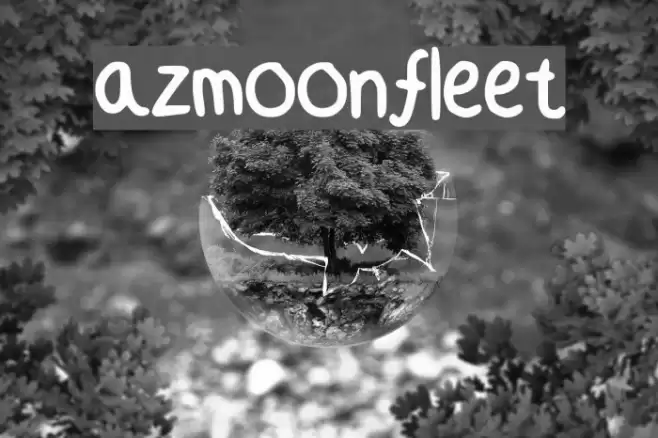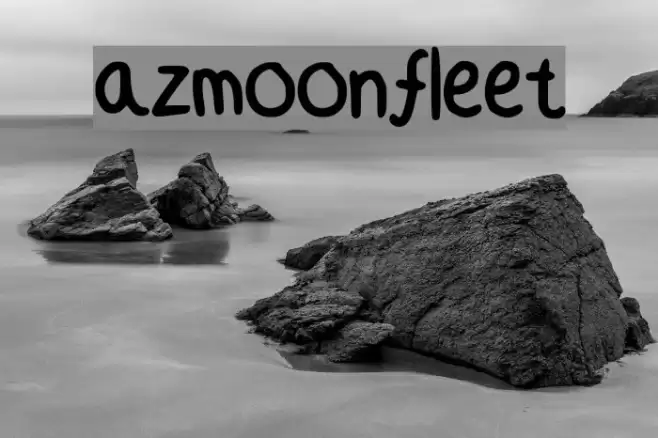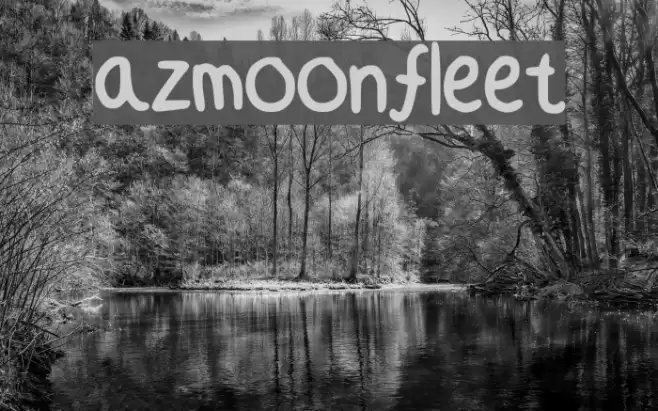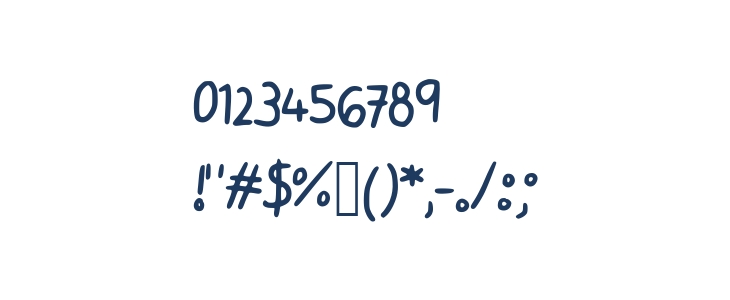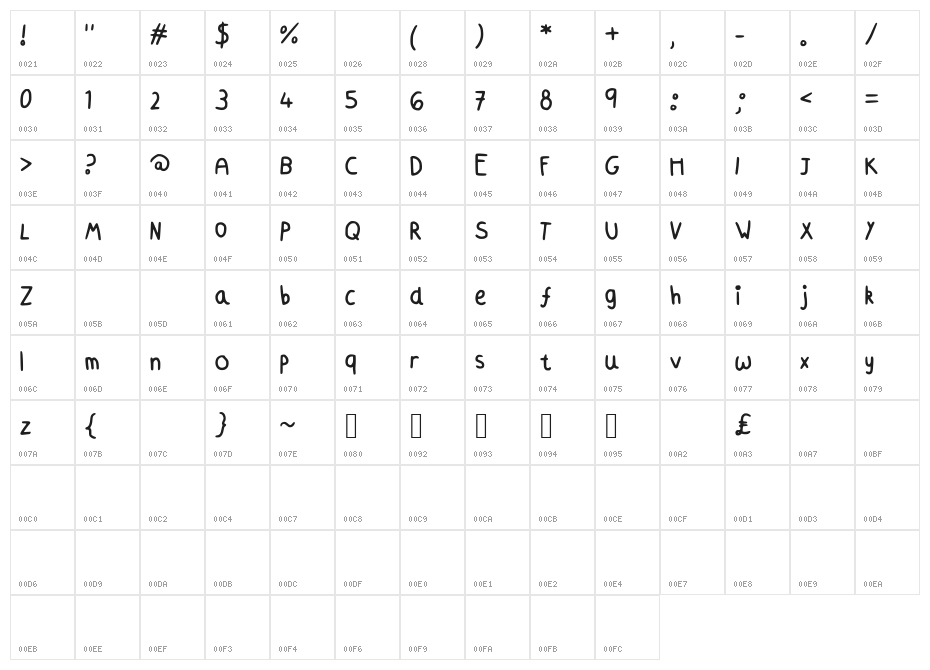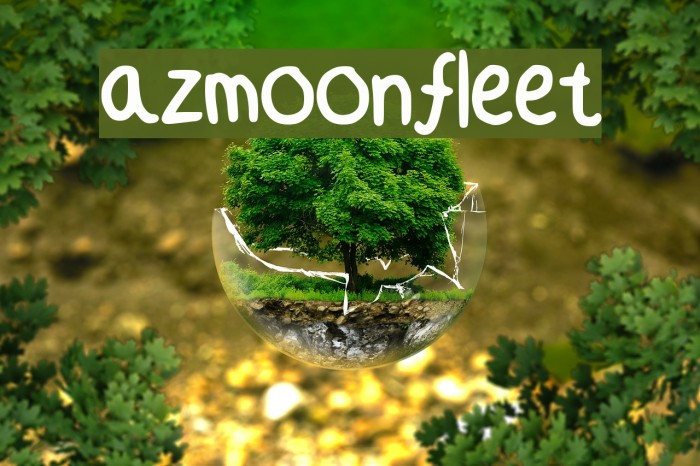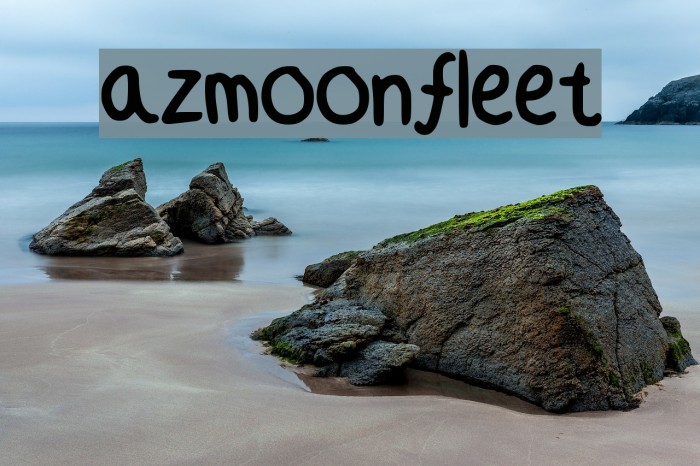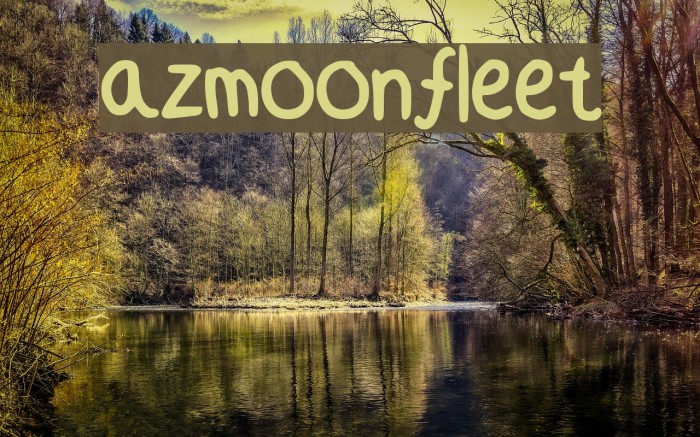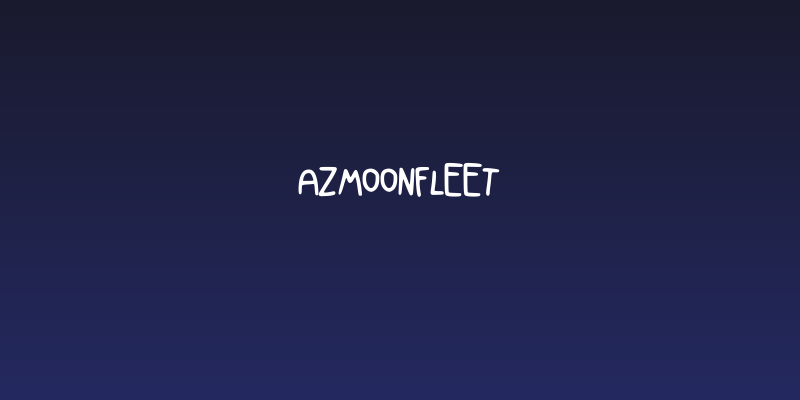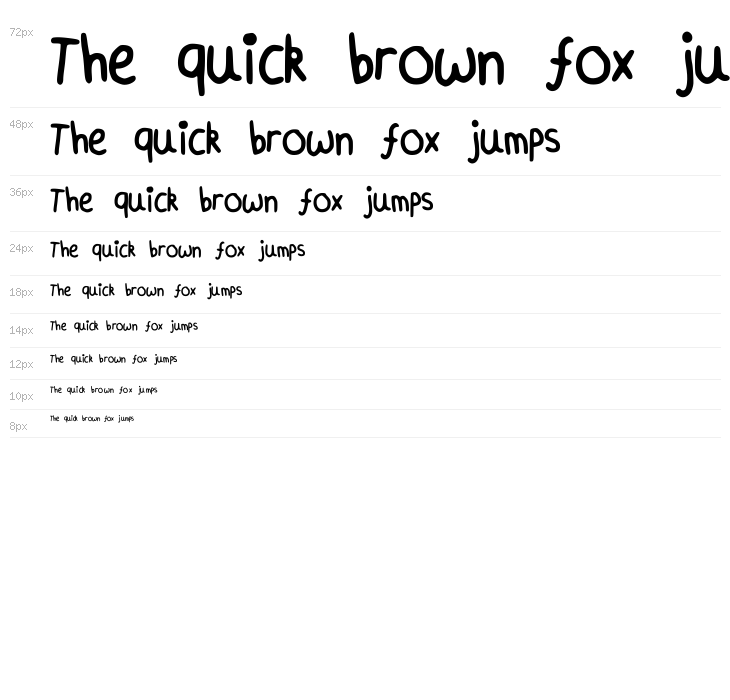
azmoonfleet Font
azmoonfleet Description
This font features a playful and casual handwritten style, characterized by its rounded and slightly irregular letterforms. The uppercase letters maintain a consistent height, while the lowercase letters exhibit a friendly and approachable appearance. The numerals are clear and easy to read, complementing the overall informal aesthetic. Special characters are well-integrated, maintaining the font's cohesive look. The strokes are of medium thickness, providing a balanced contrast that enhances readability without sacrificing its whimsical charm.
A playful, casual handwritten font with rounded, irregular letterforms from Handwritten fonts.
- Proposed Projects: Ideal for children's books, greeting cards, playful branding, and informal invitations.
- Overall Style: Casual
- Use Case: Headlines, Logos, Informal Text